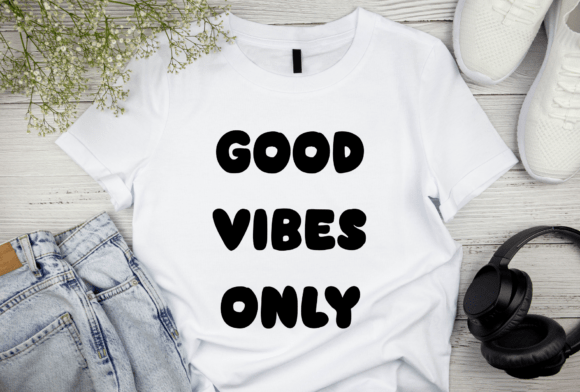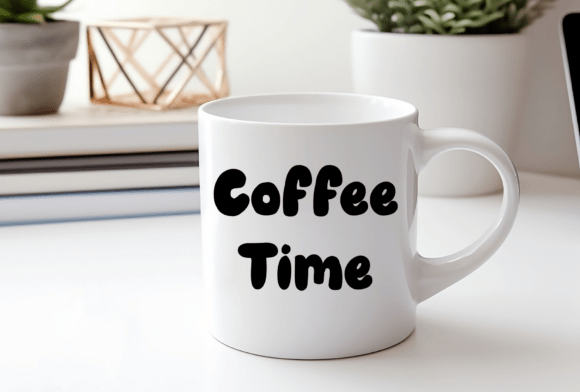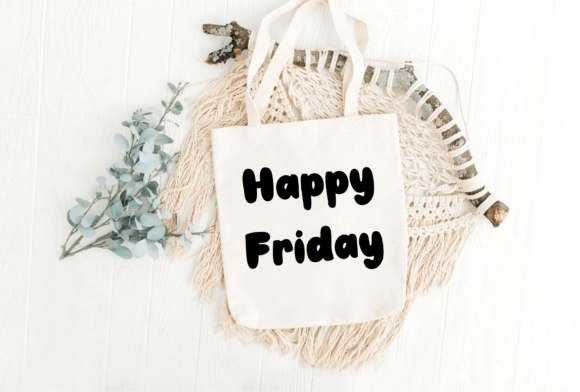
Kelly Handwritten Font
Introducing Kelly, a delightfully charming and irresistibly bold font that radiates playful confidence with every curve and stroke—perfect for adding a touch of personality to everything from cheerful greeting cards and whimsical branding to eye-catching posters and standout social media graphics, making your words not just seen but truly felt.